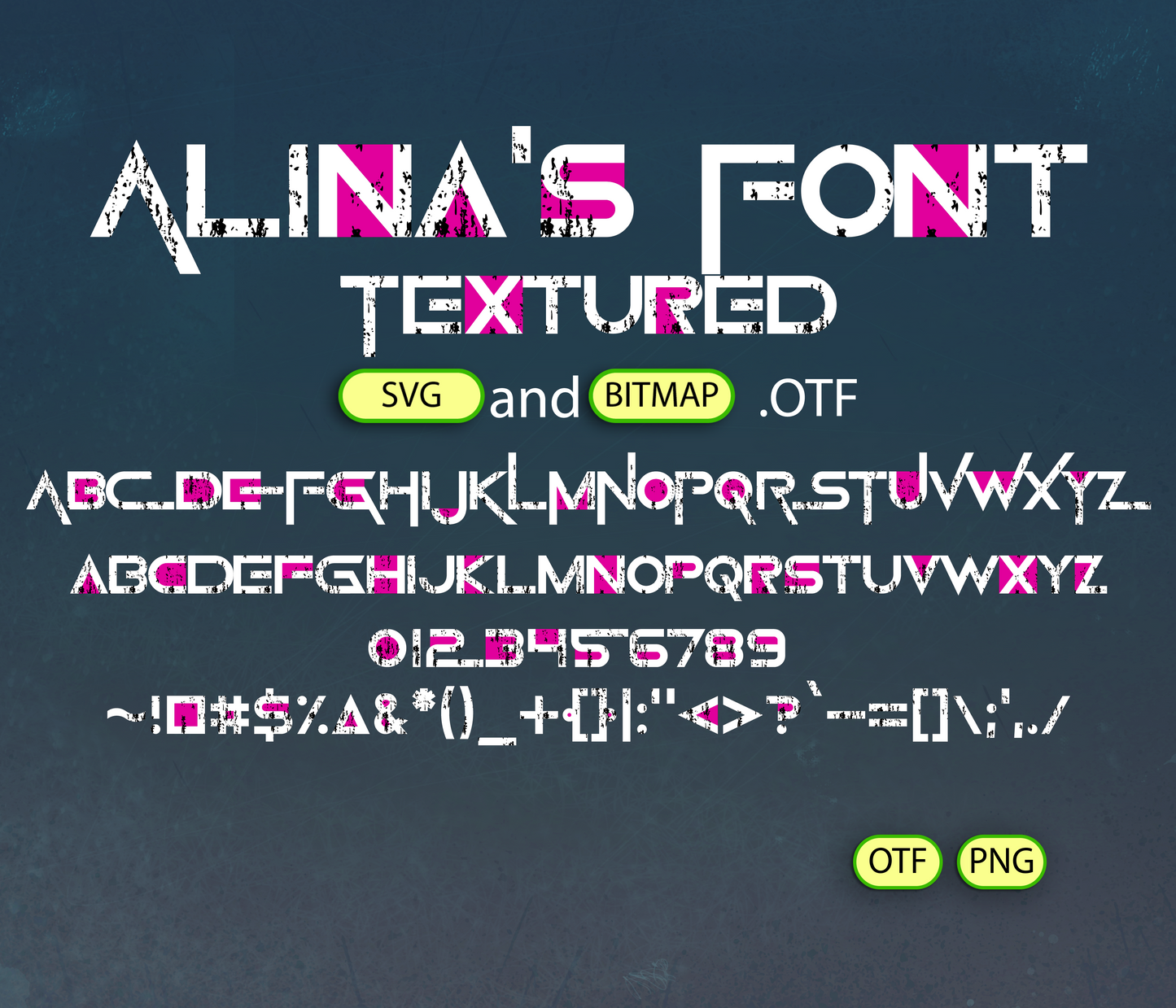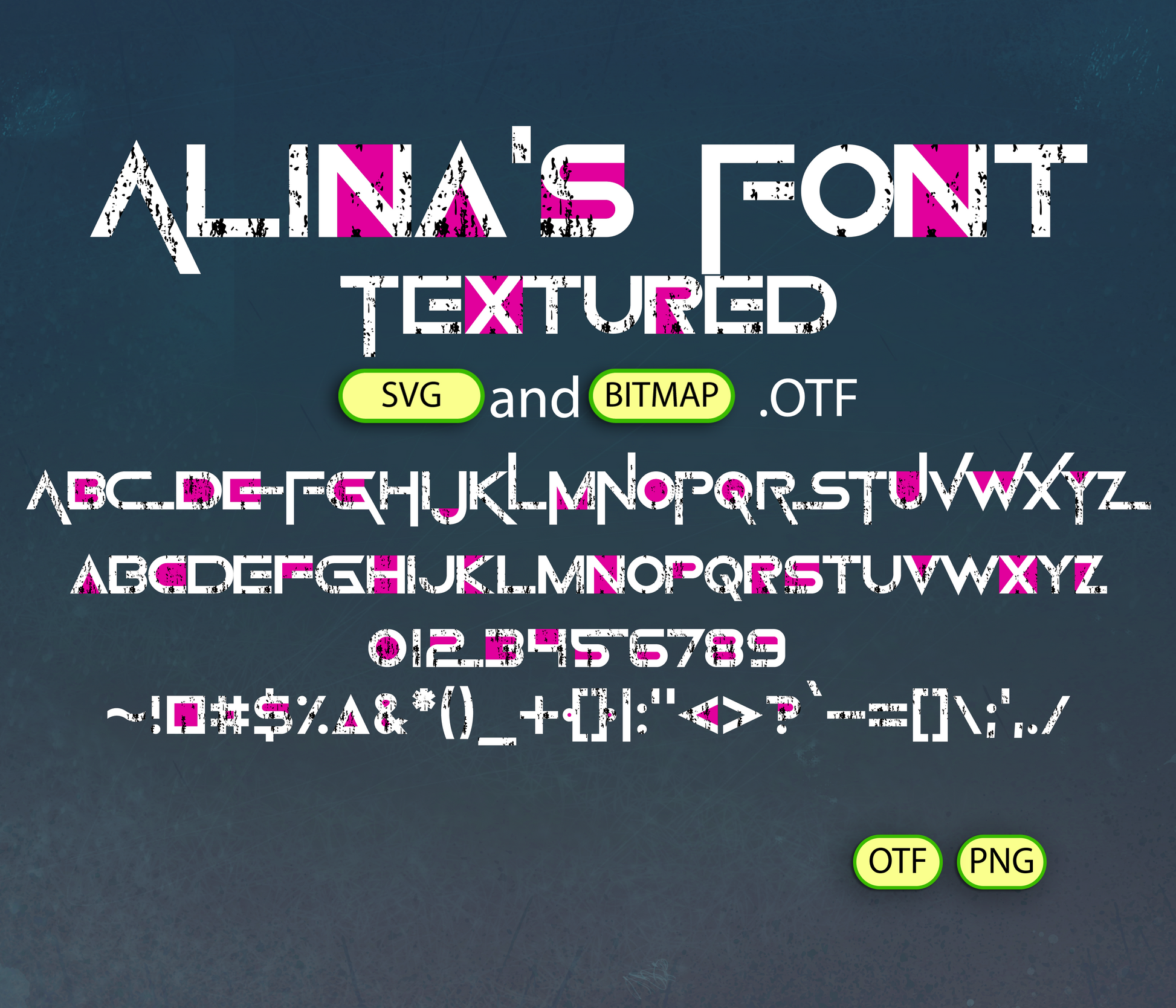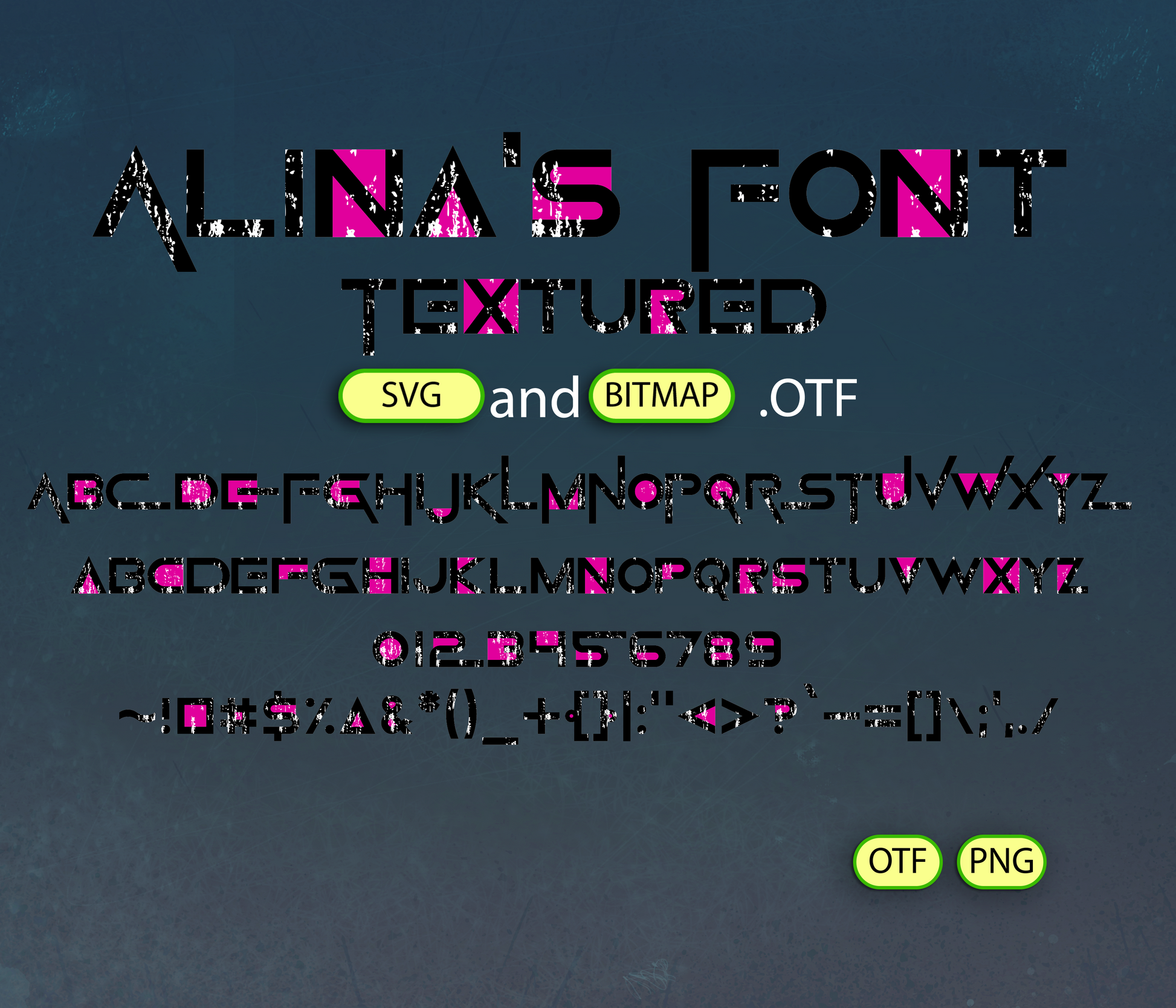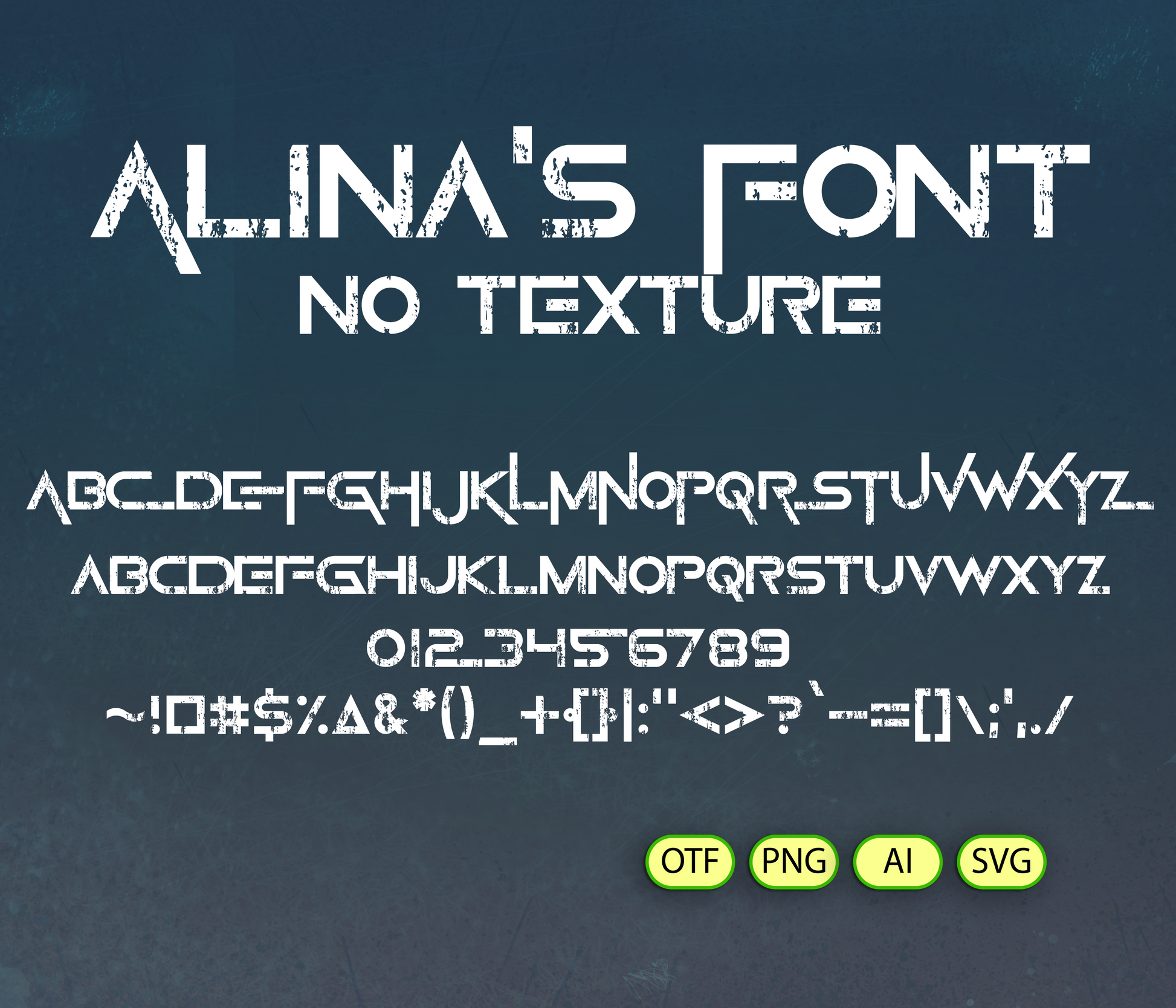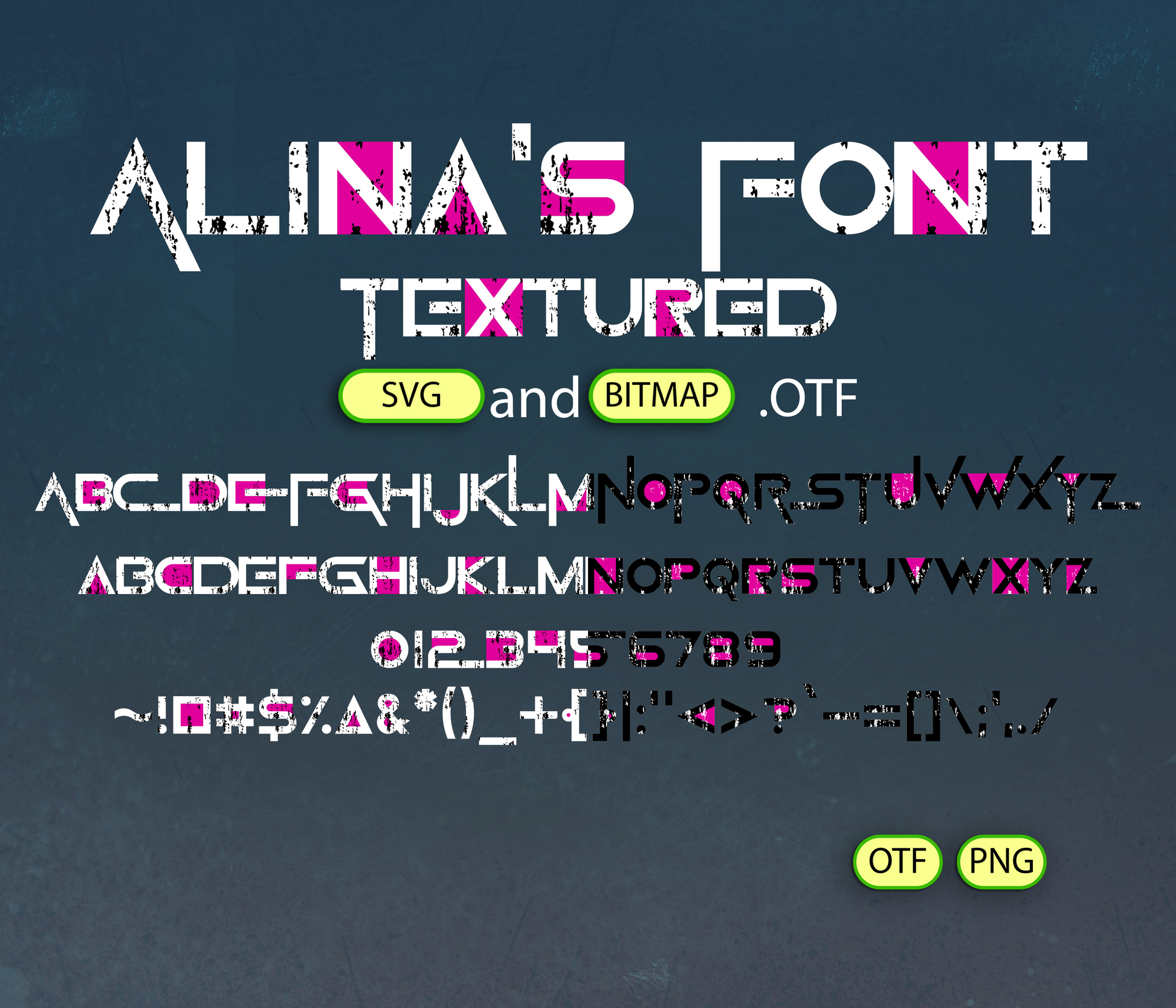
Minimalist Survival Challenge Font Textured
Survival Challenge Font Textured Squid GameÂ
Step into the intense world of high-stakes competition with our Survival Challenge font, capturing the essence of psychological thrillers and strategic gameplay. Perfect for gaming events, escape room designers, thriller content creators, and creative professionals, this font brings the tense, dramatic spirit of life-or-death games to your projects. Create gripping invitations, competition-themed merchandise, or digital content with the bold, suspenseful energy of ultimate survival contests.
Our Survival Challenge font features stark, geometric shapes and bold characters reflecting the minimalist yet menacing aesthetic of competitive survival scenarios. Ideal for:
Our Survival Challenge font includes textured and non-textured variants, ensuring compatibility with all software, including Canva. This feature allows easy incorporation into designs for users of all skill levels.